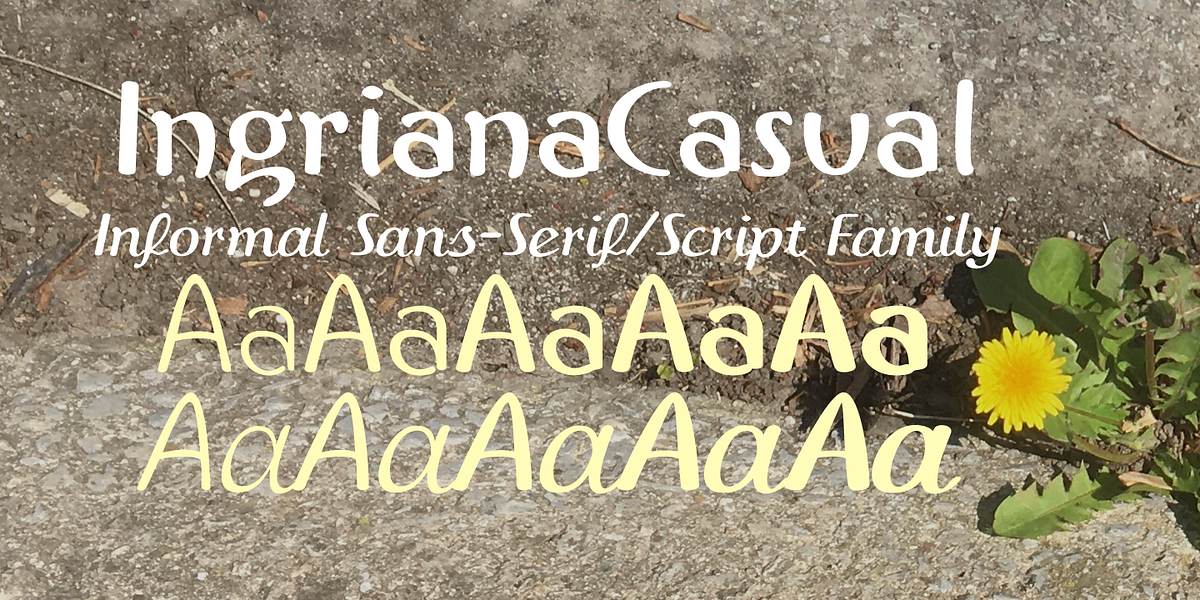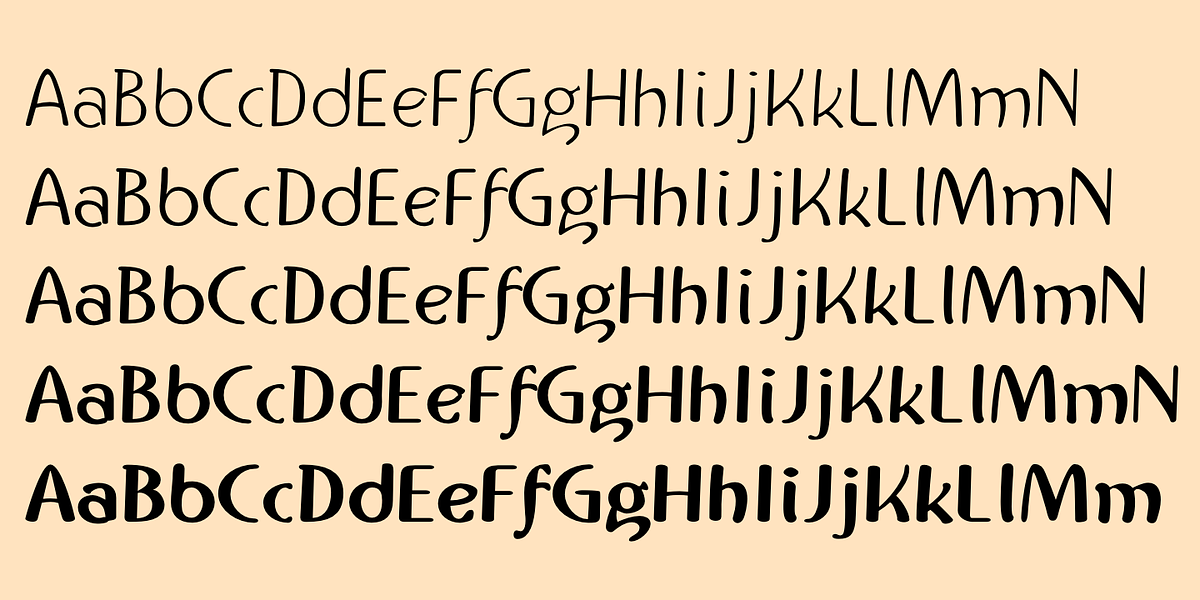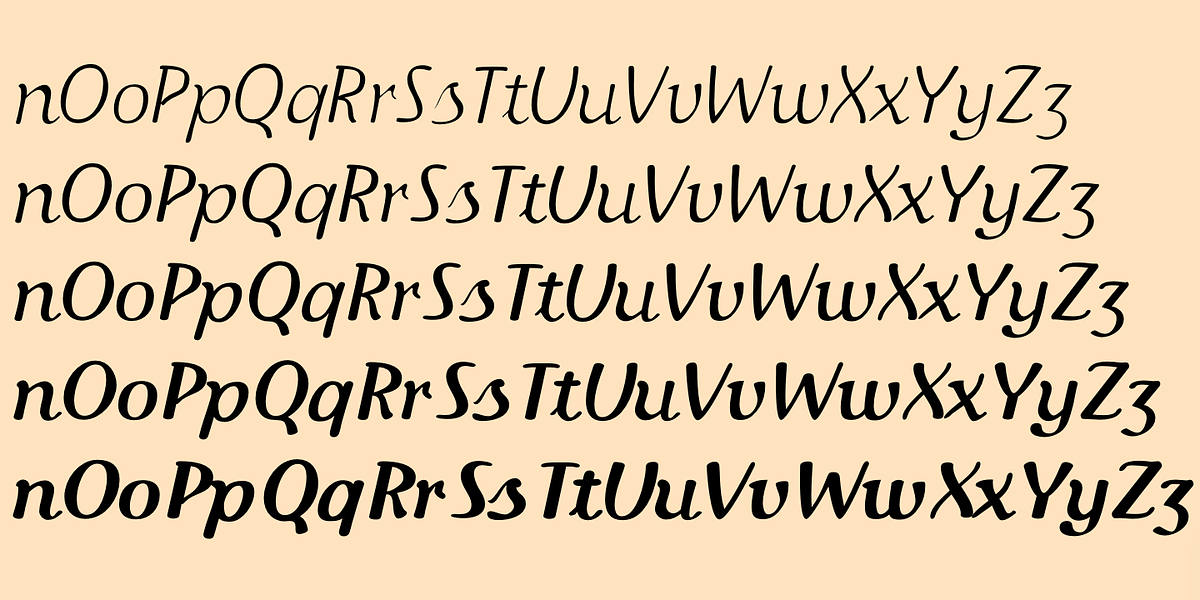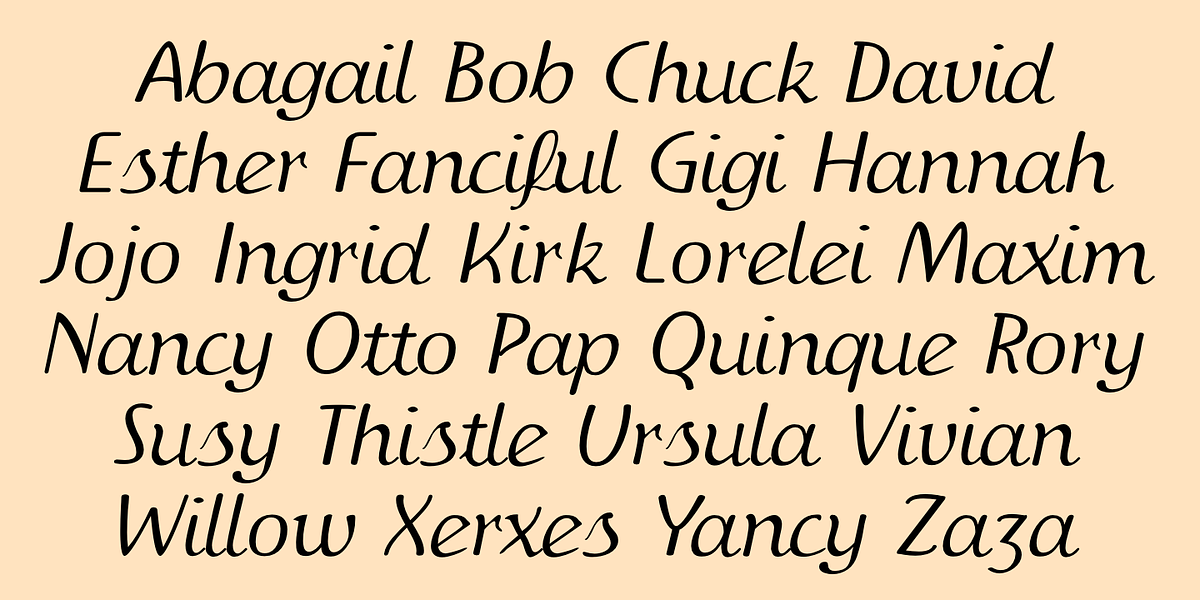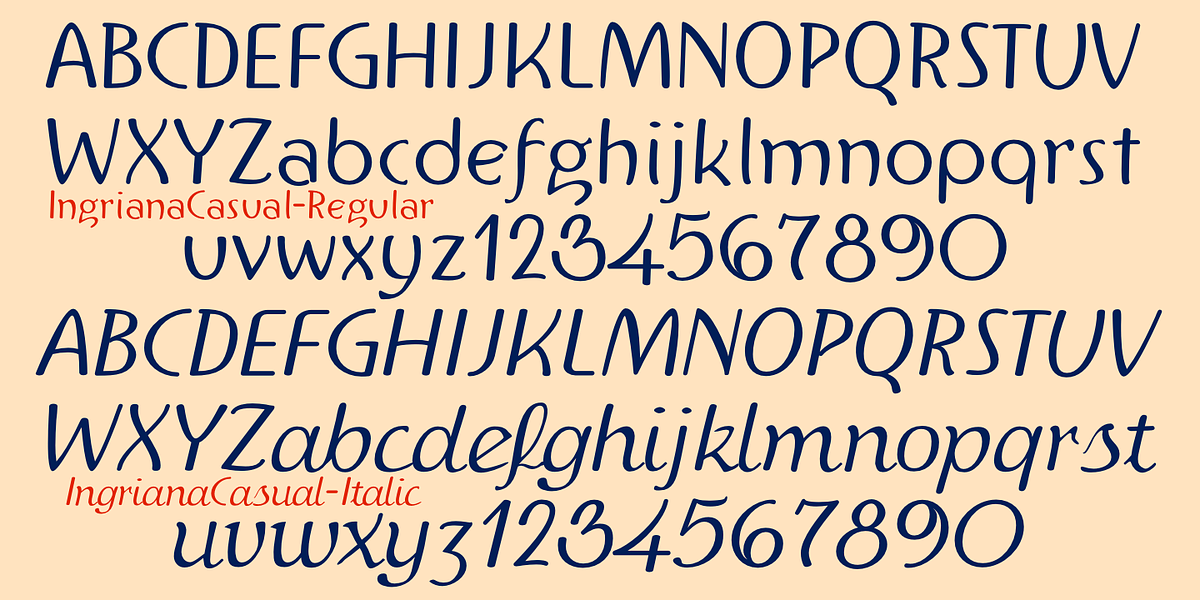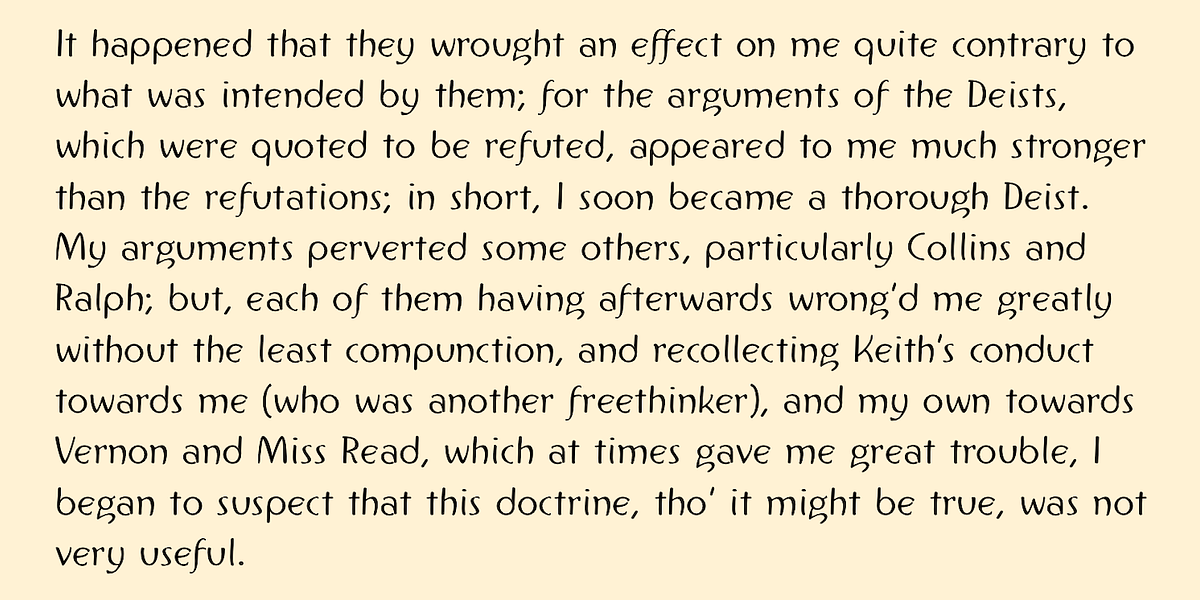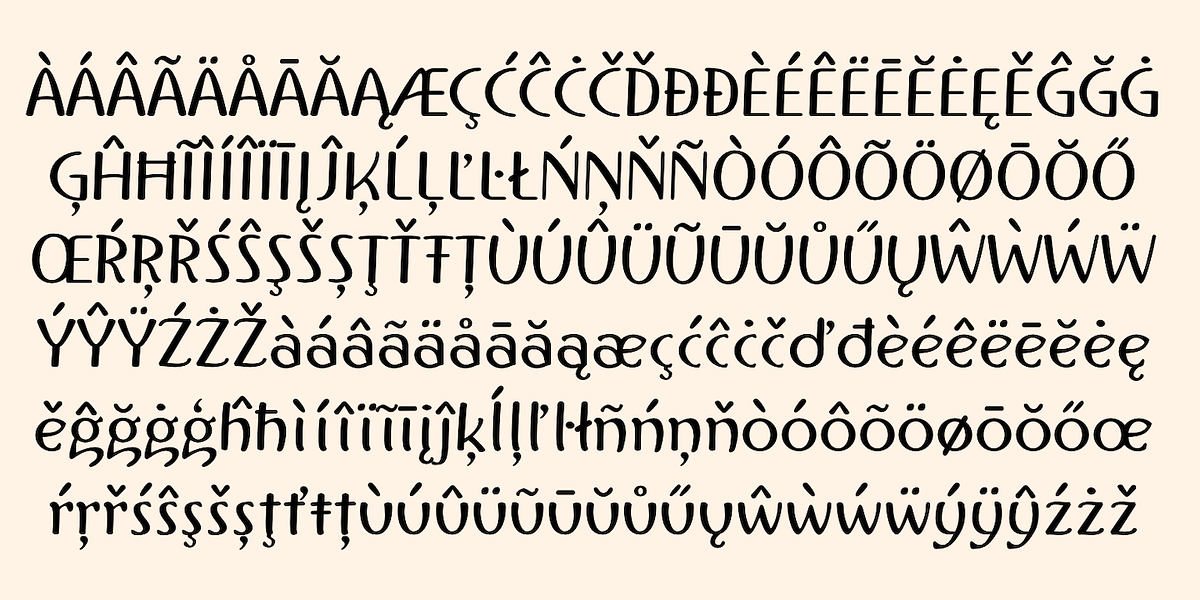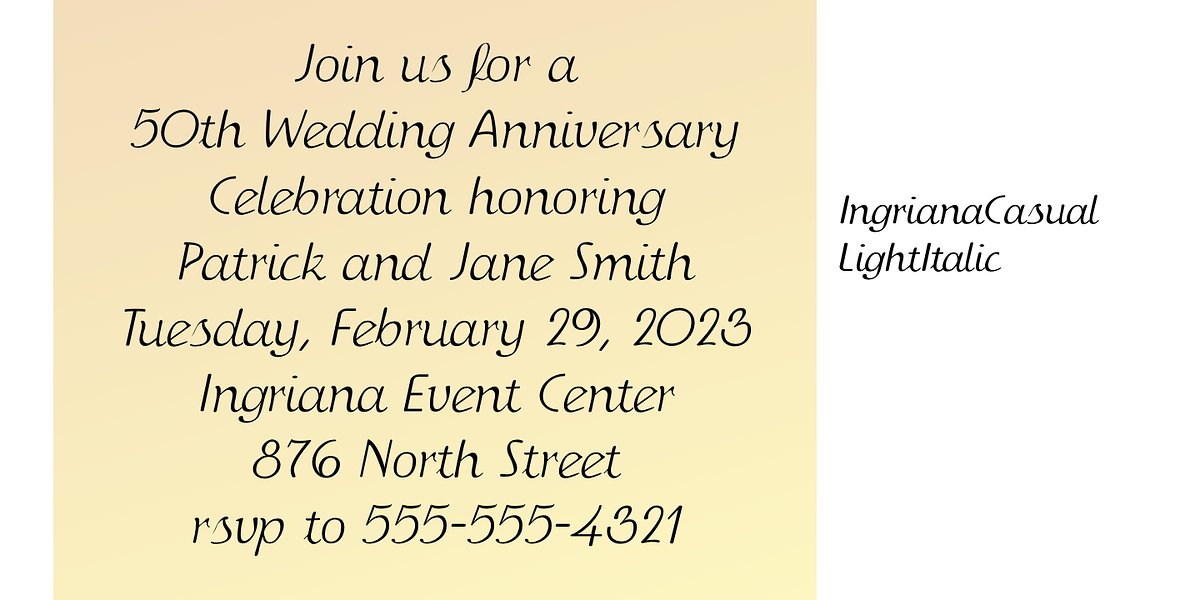
IngrianaCasual
IngrianaCasual is a hand-drawn sans serif font family with a unique blend of relaxed and informal upright styles and decorative, elegant italics. The semi-script lowercase letters in the italics add a touch of personality and flair. Its high legibility makes it suitable for various applications like brochures and advertising.